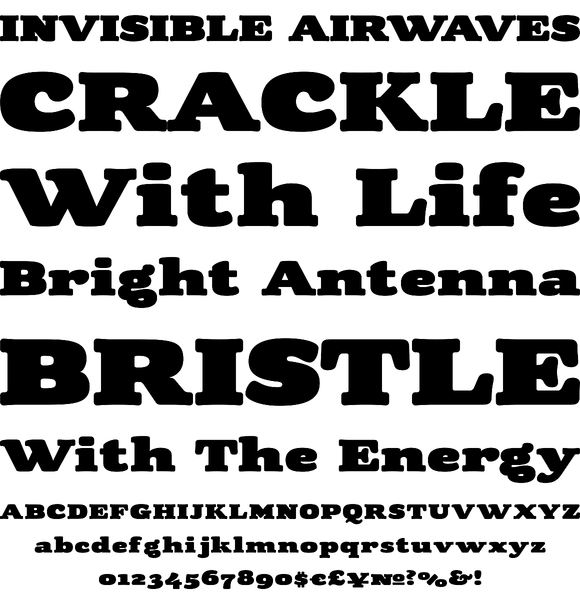
Foundry: Suomi Type Foundry
Tubby came about when I made a book with Cooper Black as a headline font. I started playing with heavy forms, and as a result was Tubby. It has a fat and friendly feel, and with swash italics it is fairly versatile in use.